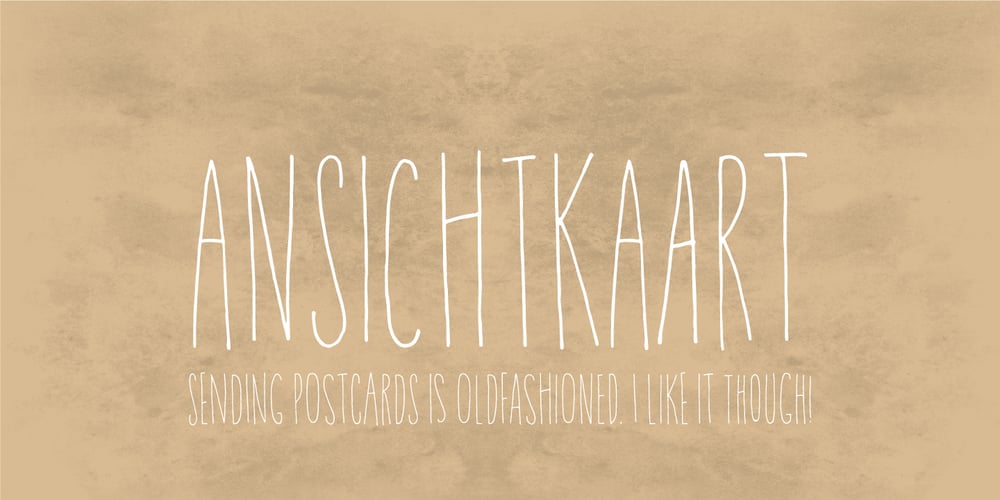
Ansichtkaart Font Family was designed by Jakob Fischer and published by PizzaDude.dk. Ansichtkaart contains 1 styles and family package options. Ansichtkaart is dutch for postcard. People rarely send postcards these days, they send emails. But, if you really, really want to send a postcard, then write it by hand. Otherwise, send a greeting via email using cute graphics and a cute font. Use Ansichtkaart! The receiver will love it! Comes with astonoshing 8 different versions of each letter, using contextual alternates. Besides that, the font is loaded with foreign characters!